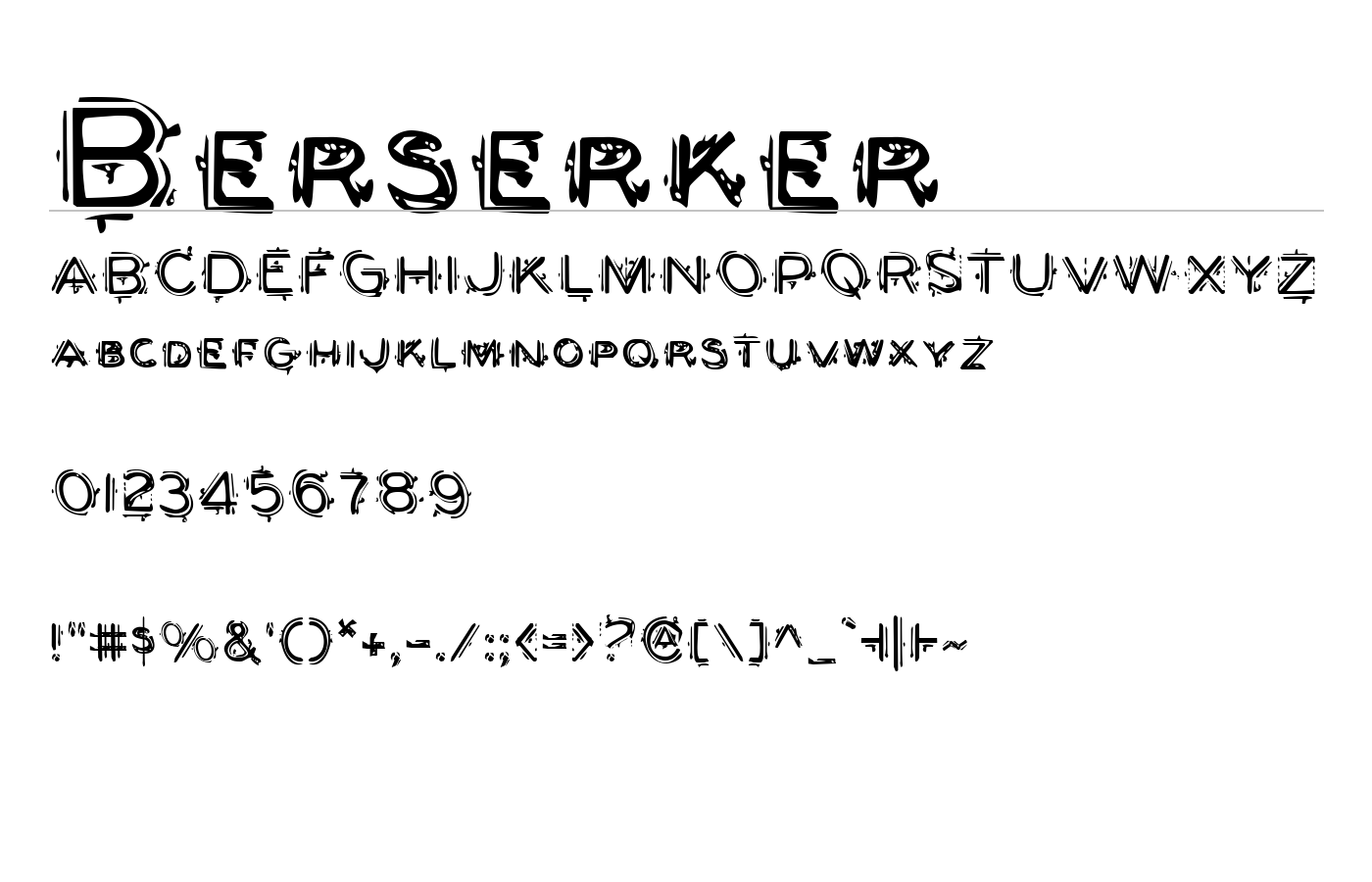
Berserker is a bold, decorative sans serif font with a distressed, grunge-inspired style that gives it an edgy and dynamic personality. Its irregular, fragmented letterforms create a sense of movement and intensity, making it ideal for eye-catching headlines, posters, and branding projects that want to convey strength and rebellious energy. This font works best in creative and alternative designs where a rough, urban vibe is desired.
Berserker Font
About Berserker Font